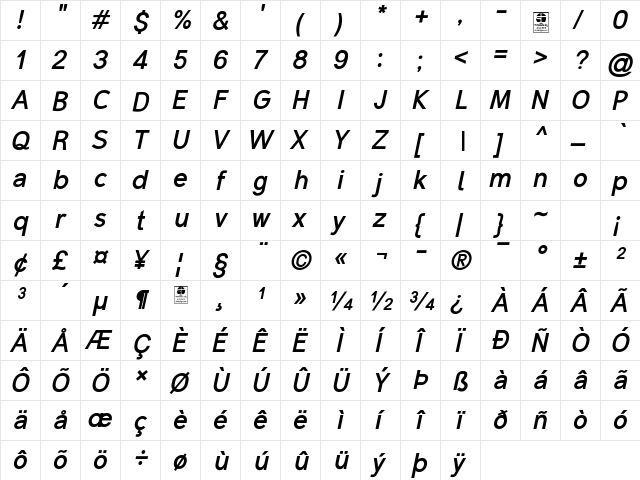
Malter Sans Bold Italic demo Regular Font Preview
Design Context for Malter Sans Bold Italic demo Typeface
Malter Sans Bold Italic demo offers clean, dependable letterforms without strong stylistic allegiance, making it a practical choice for designers who need flexibility. The dynamic lean of this cut emphasises speed and emphasis in any layout. The heavy weight commands attention and anchors typographic hierarchies.
Pro Tip: Use Malter Sans Bold Italic demo for emphasis, pull quotes, and subheadings where its slanted energy can add rhythm to the layout.